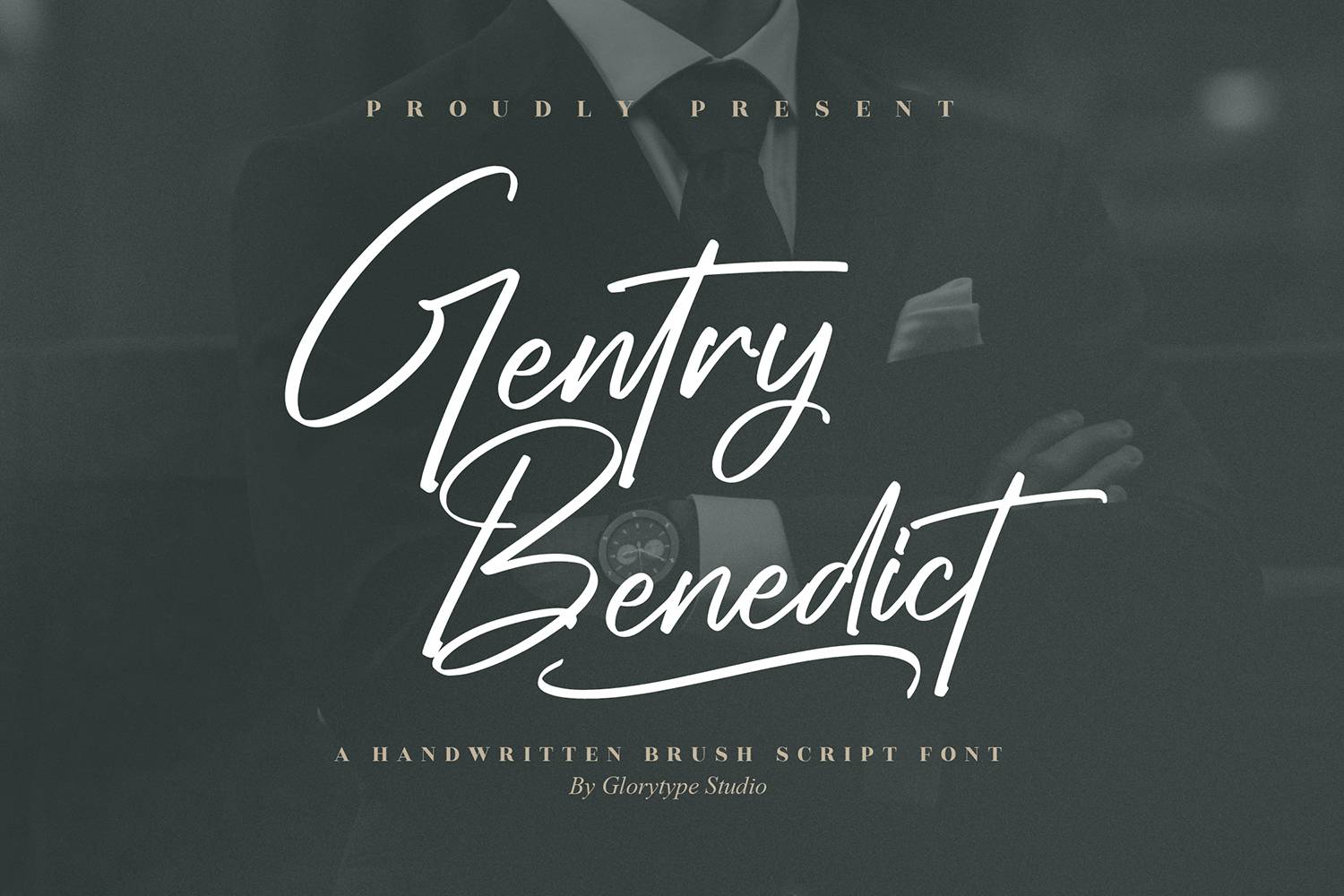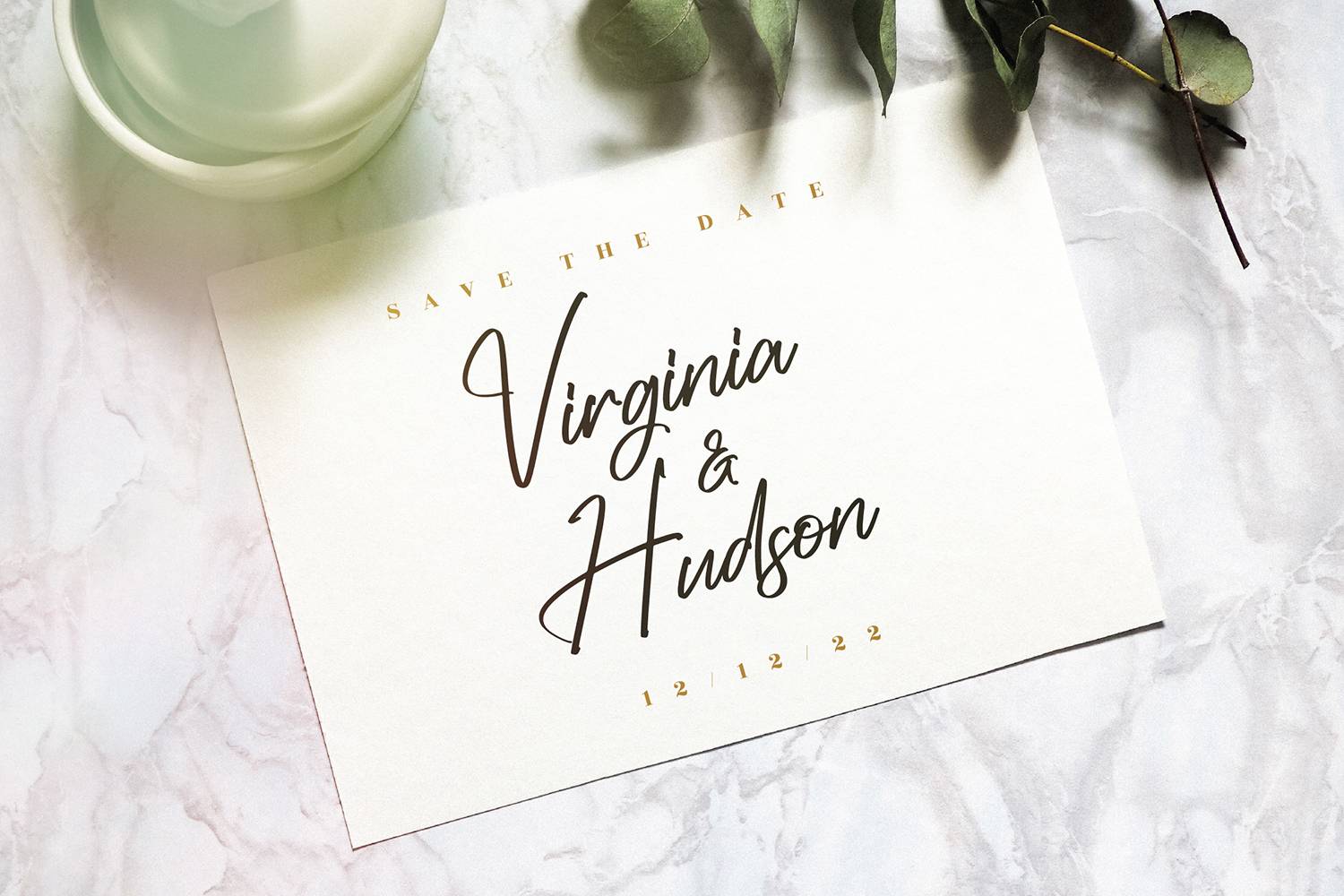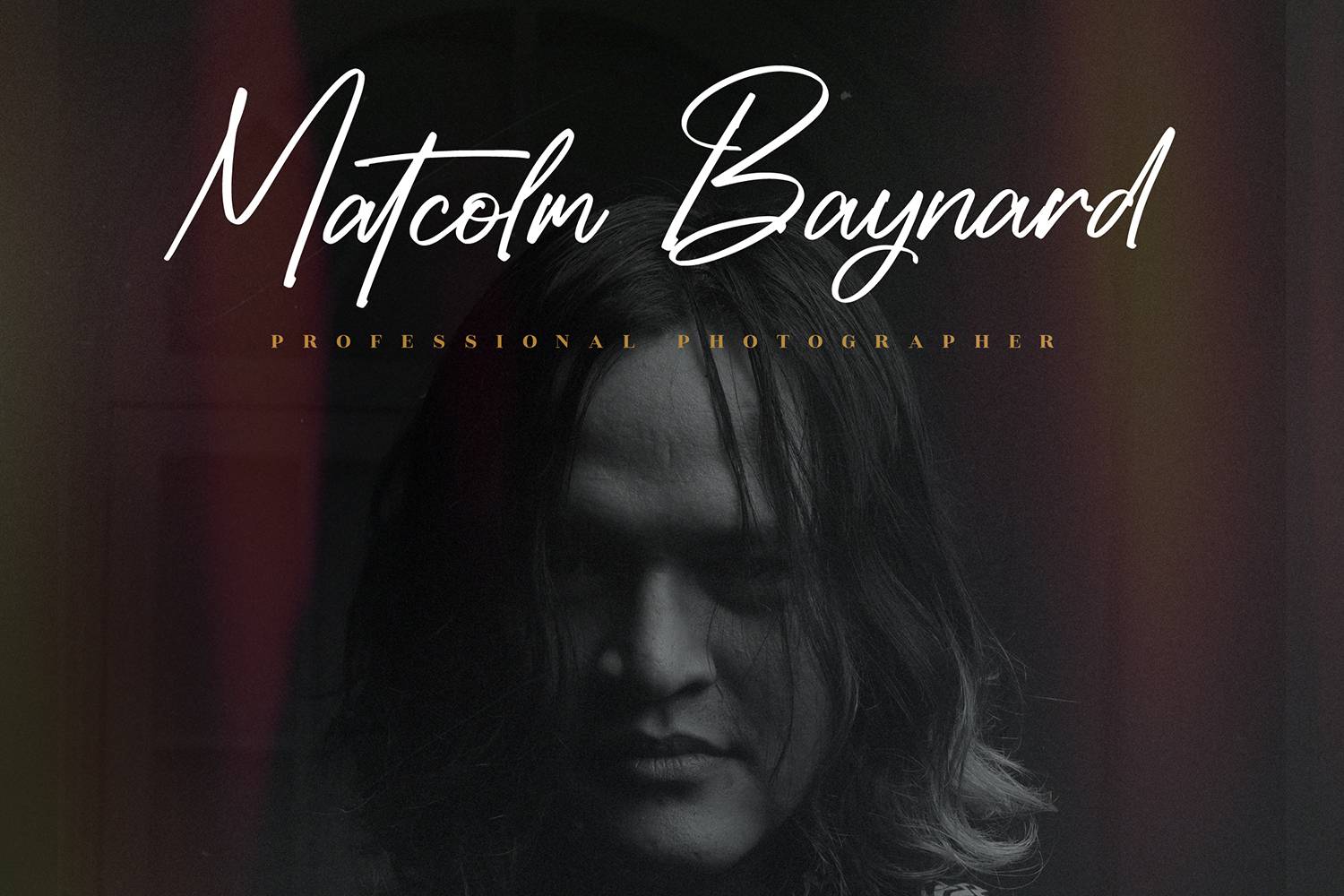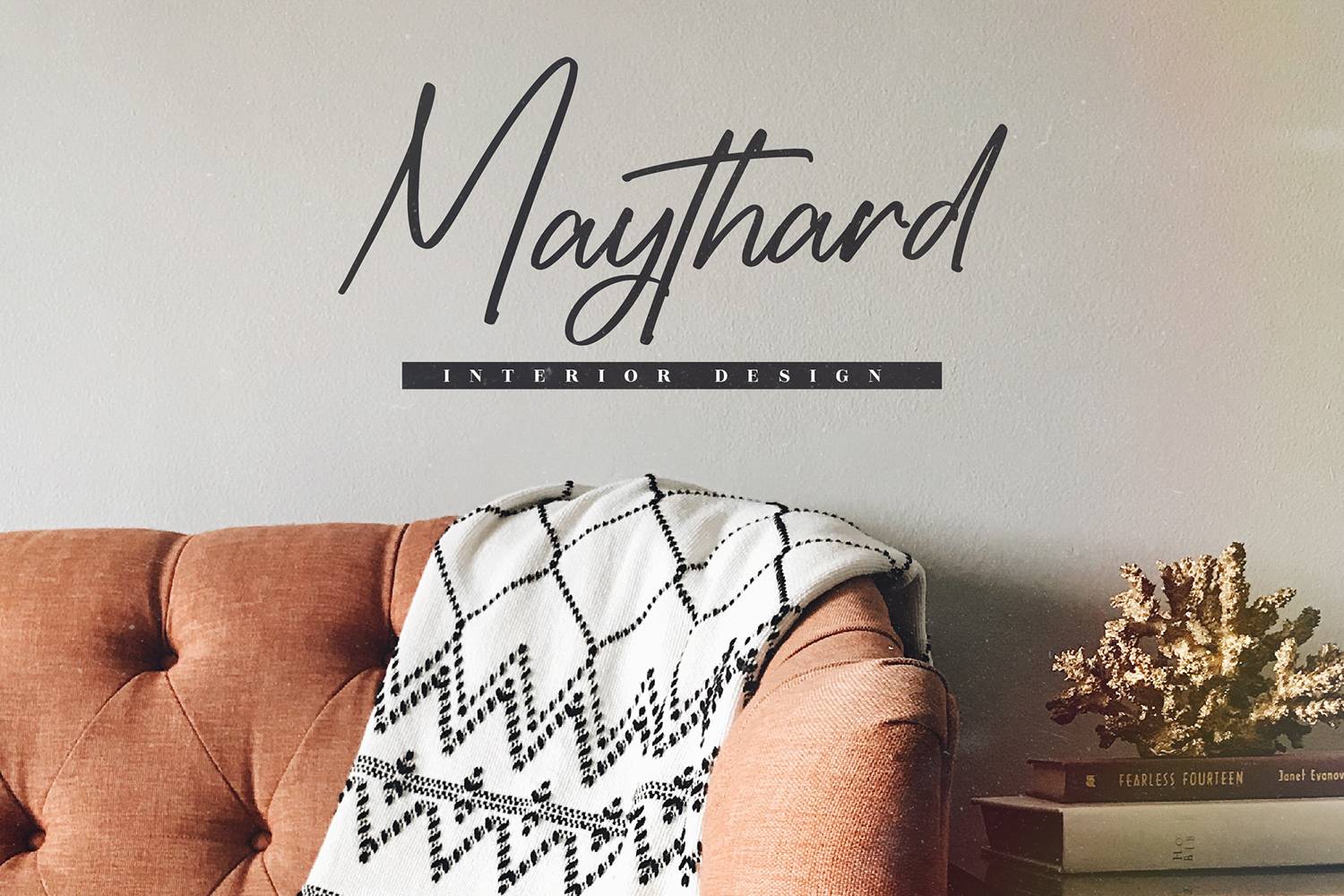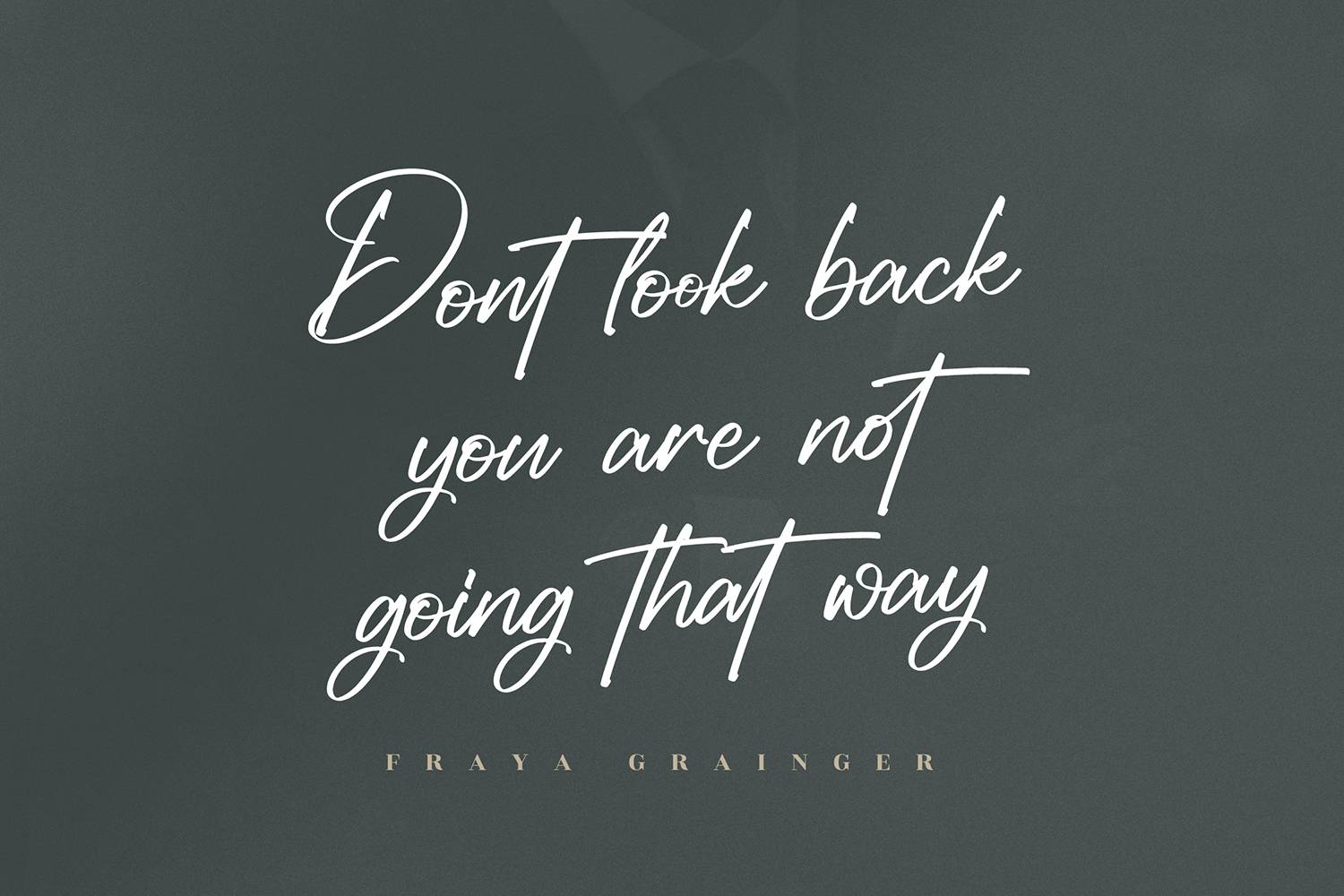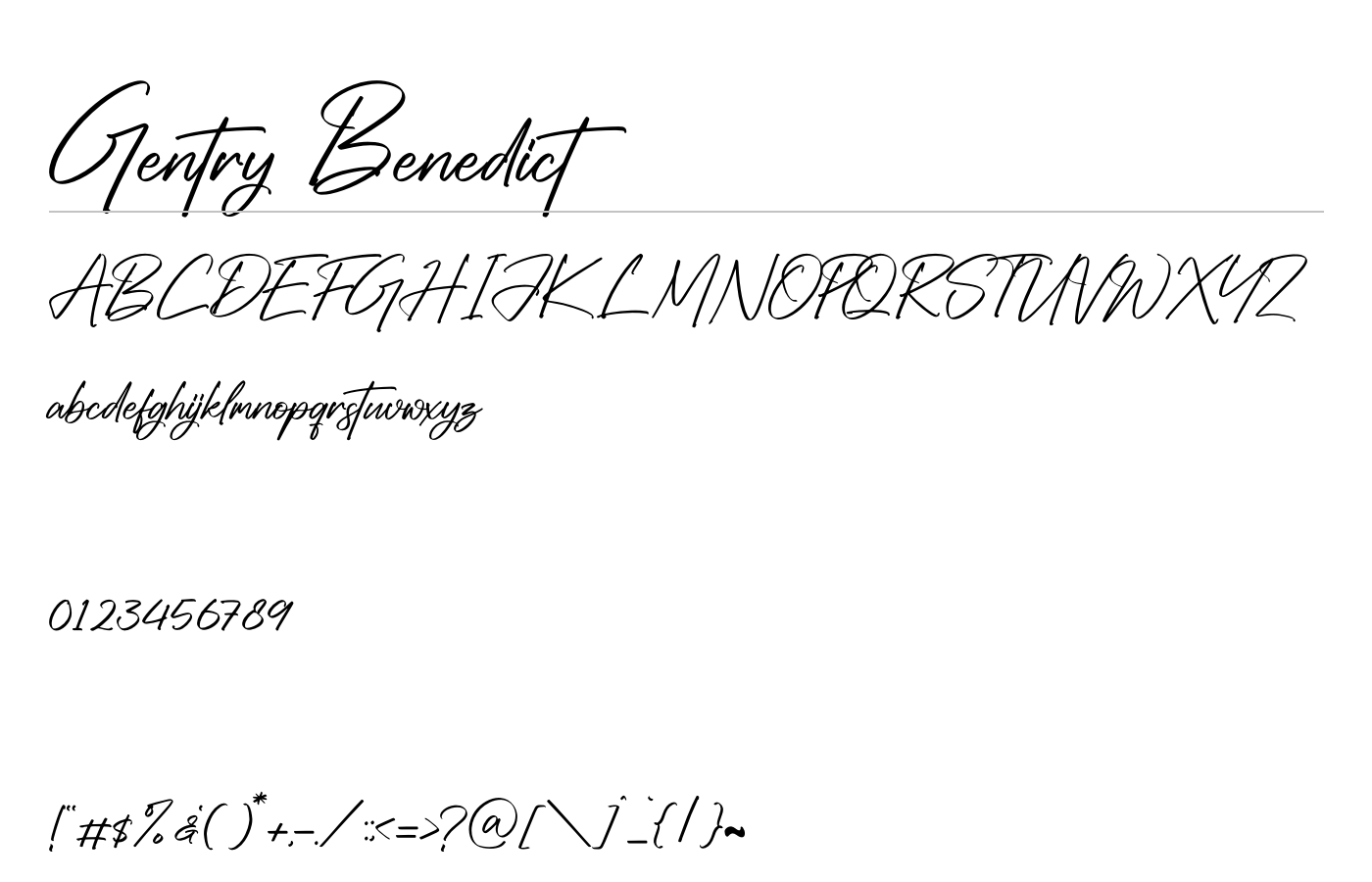
Gentry Benedict is a stylish, script-inspired font with a delicate, hand-lettered feel. Its thin, flowing strokes and elegant letterforms convey sophistication and charm, making it perfect for branding, invitations, and creative projects that need a personal, refined touch. This font works beautifully for designs that want to evoke grace and individuality.
Gentry Benedict Font
About Gentry Benedict Font